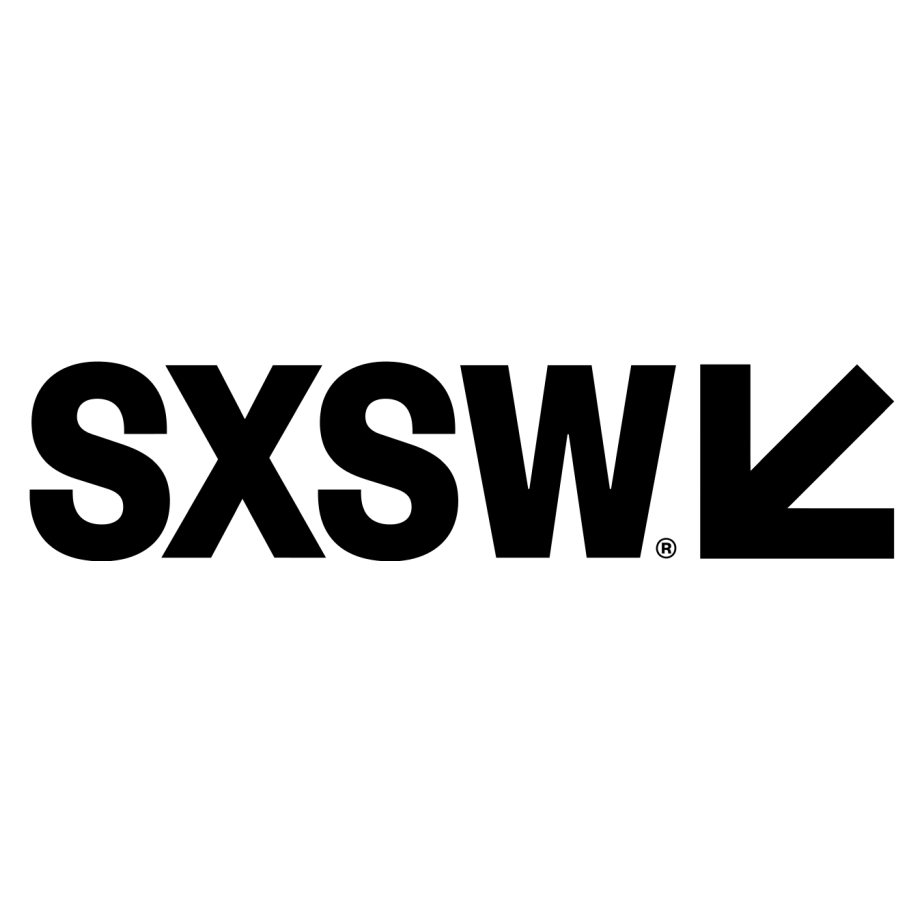
South by Southwest Font
Fonts in UseSouth by Southwest (SXSW) is an annual conference and festival held in Austin, Texas, that brings together professionals and enthusiasts from various industries, including music, film, interactive media, and technology.
The SXSW logo is based on Founders Grotesk Condensed SemiBold by Kris Sowersby, a grotesque sans serif inspired by early twentieth century classics. You can learn more about the font here.